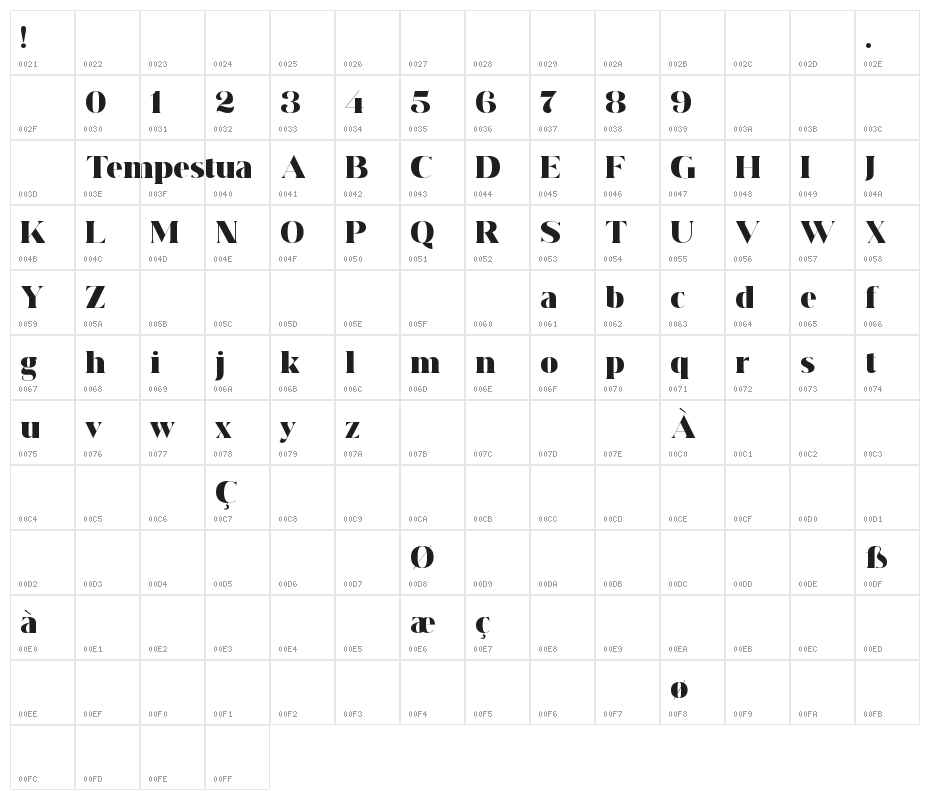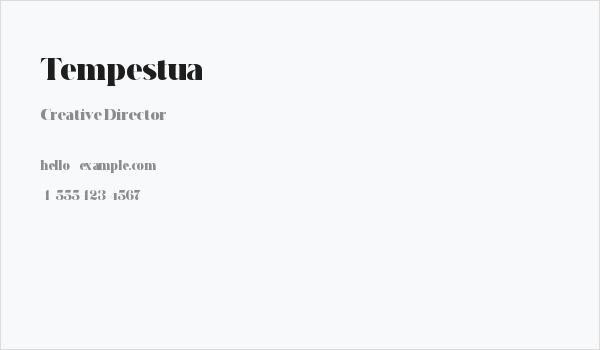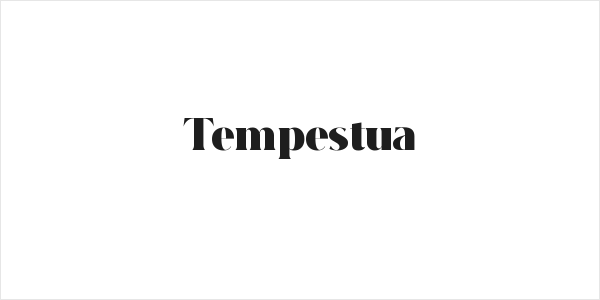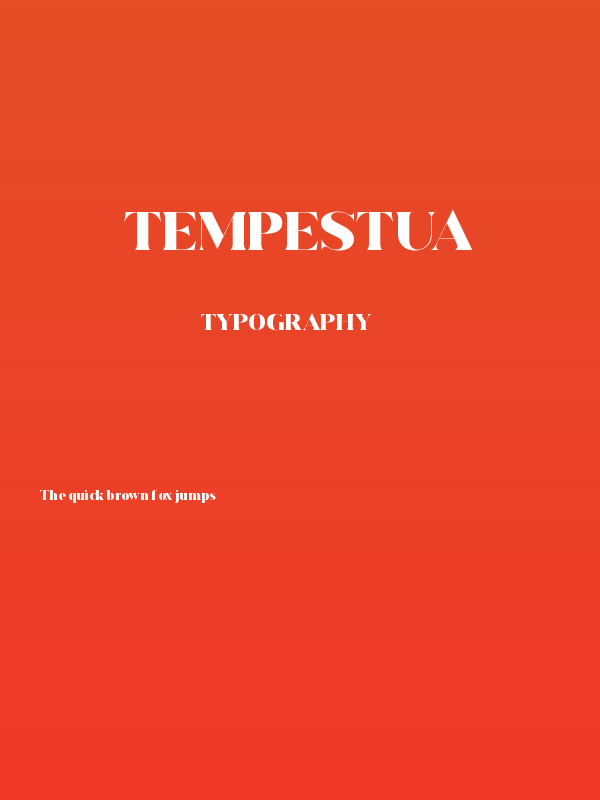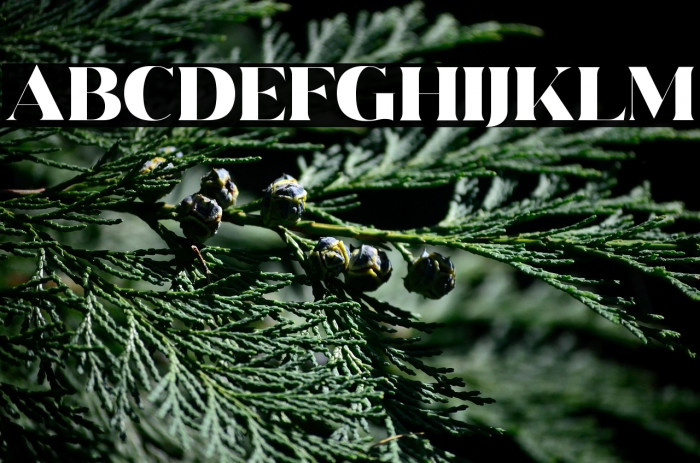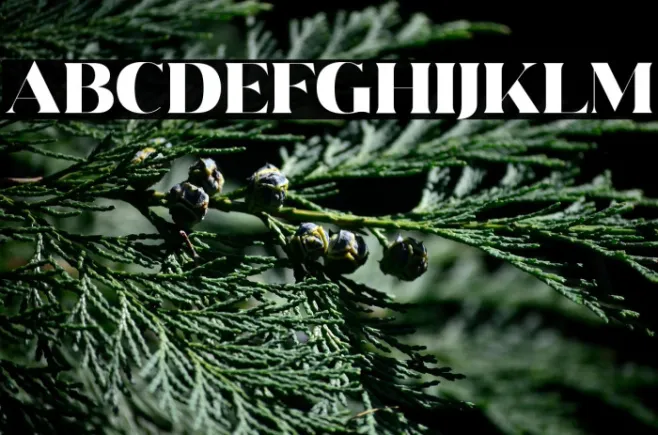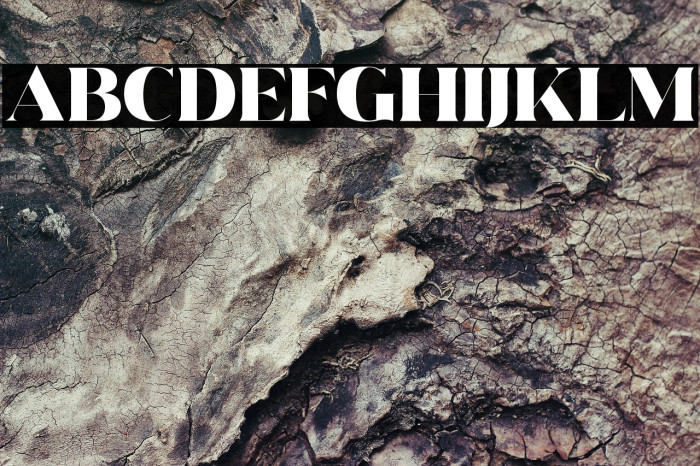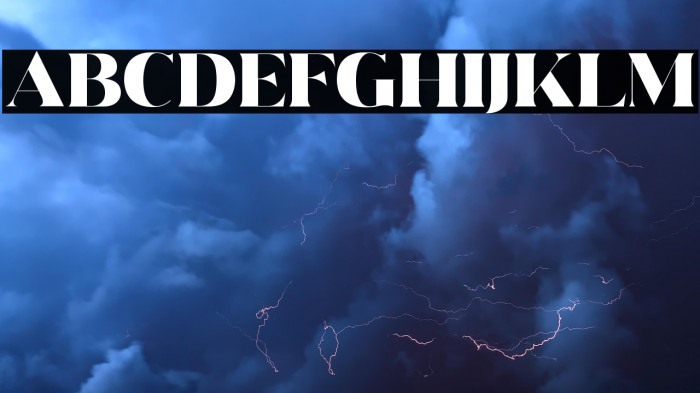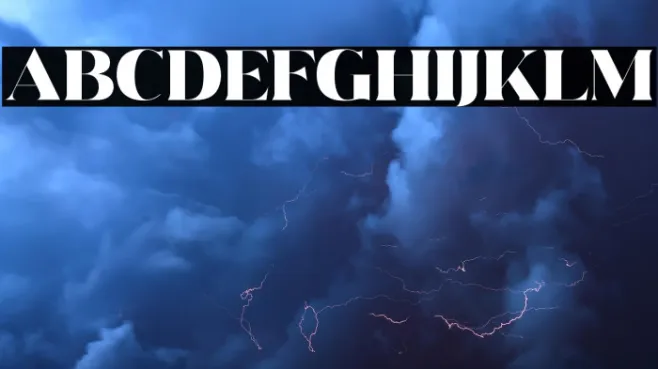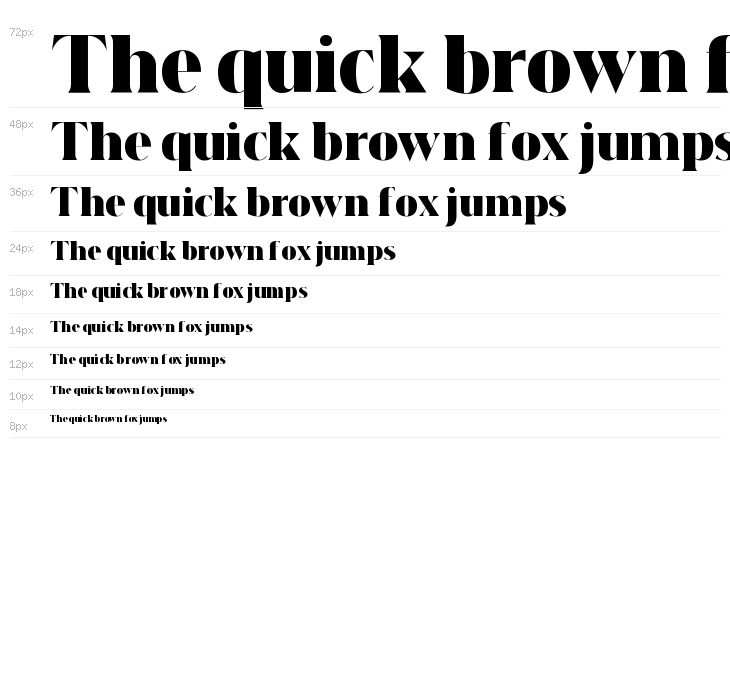
Tempestua Font
Tempestua Description
This font features a bold and dramatic style with high contrast between thick and thin strokes, giving it a striking and elegant appearance. The uppercase letters are particularly distinctive, with sharp serifs and a sense of movement that adds a dynamic quality. The lowercase letters maintain a consistent style, with rounded forms that complement the angular serifs of the uppercase. Numbers are equally bold, ensuring readability and impact. The overall design is both classic and modern, making it versatile for various design needs.
| Use Case | Headlines, Logos, Editorial design |
| Proposed Projects | Ideal for luxury branding, editorial design, high-end packaging, and dramatic headlines. |